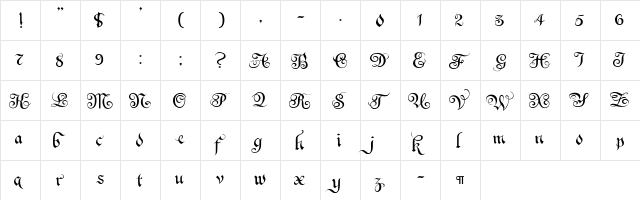
CallifontsE49PostScript Regular Font Preview
CallifontsE49PostScript Regular
CallifontsE49PostScript Regular Font Details
Design Context for CallifontsE49PostScript Typeface
CallifontsE49PostScript flows with the natural rhythm of handwritten lettering, making it ideal for designs that call for warmth and personal expression.
Font Pairing: Combine CallifontsE49PostScript with a simple geometric sans for maximum contrast — the tension between flowing curves and clean structure is a classic typographic pairing.
Pro Tip: Use CallifontsE49PostScript for short runs of text — names, titles, or taglines. Extended body copy in script faces tires the eye quickly.